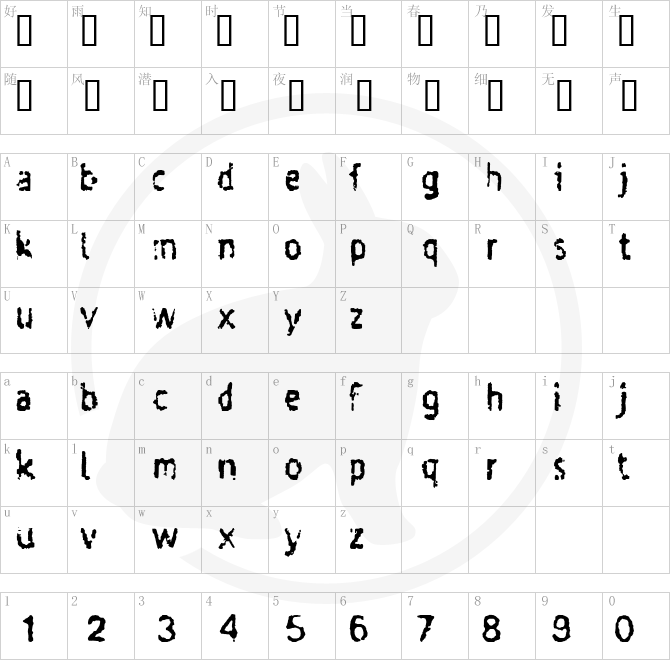
- Font Name:Taigatrust
Taigatrust.ttf is a very beautiful artistic font, Taigatrust.ttf is widely used in the design and printing of various books and pictures,Taigatrust.ttf has a strong visual impact,Taigatrust.ttf is a commonly used font in newspapers, magazines and books, and is used in posters, e-commerce Poster design, store design, logo design, font design and other fields.Taigatrust.